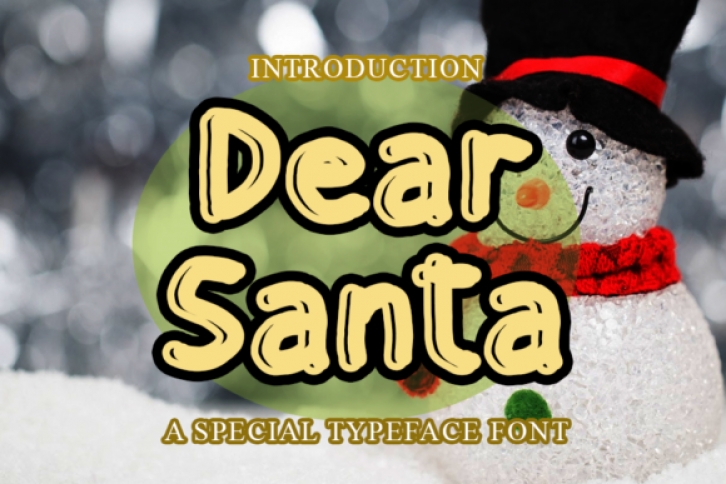
Dear Santa is a simple and friendly display font. No matter the topic, this font will be an incredibly asset to your fonts’ library, as it has the potential to elevate any creation.